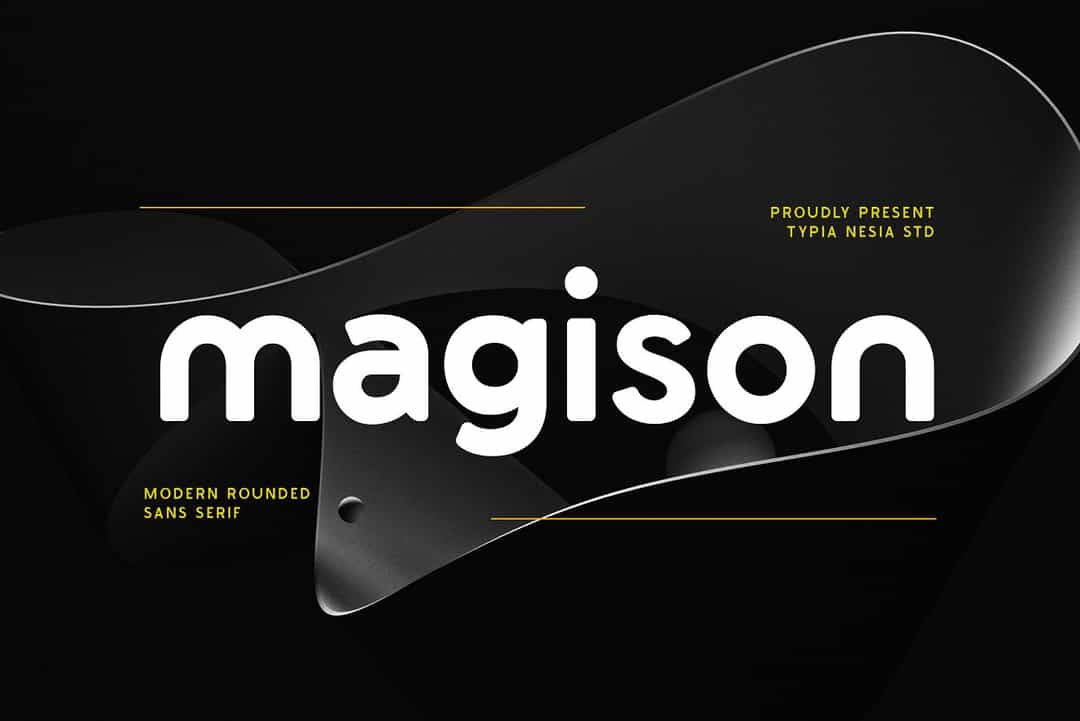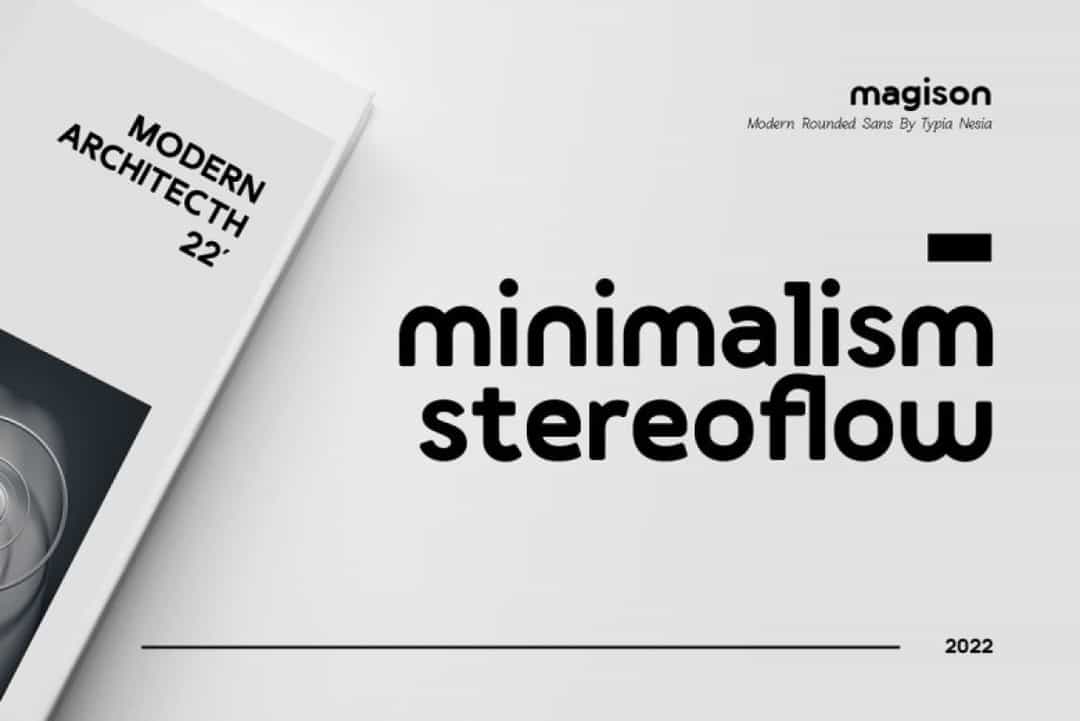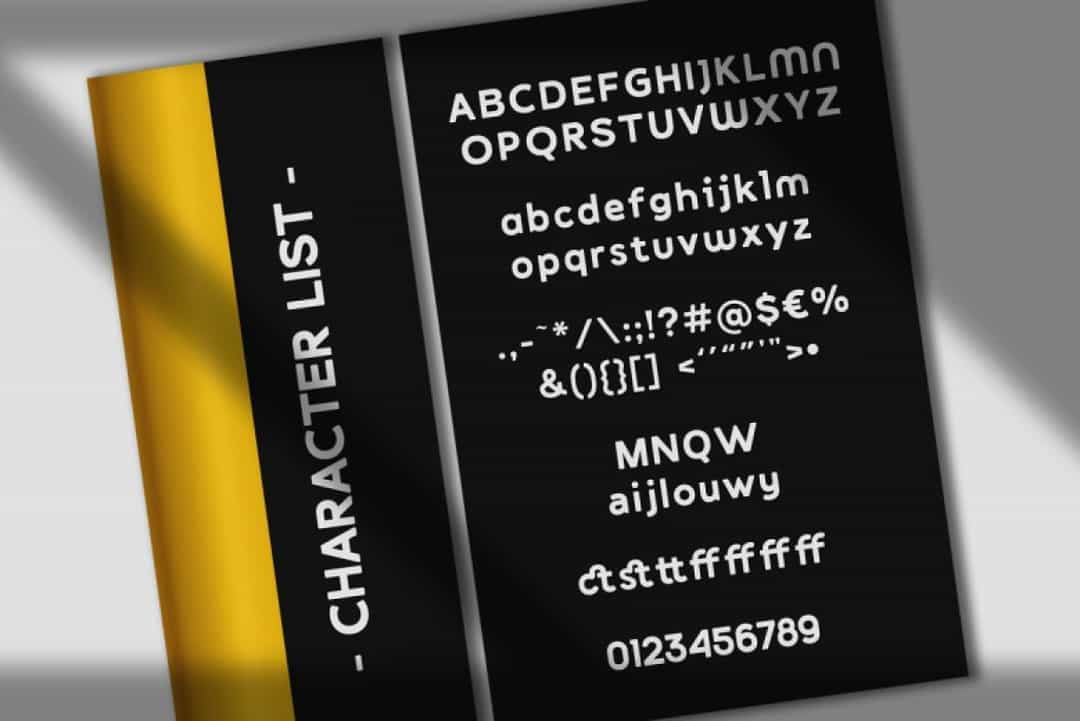
Magison is a modern, round Techno Gadget Technology/Tech Display Font that makes an impactful statement about who you are or your brand. Perfect for logo design, editorial designs stationery design and esports logos; 80s retro gaming industry graphics designs; sports racing; technology, gadget brands, digital music posters as well as modern advertisement design, artwork quotes, interior decor, book covers or special occasions and much more besides!